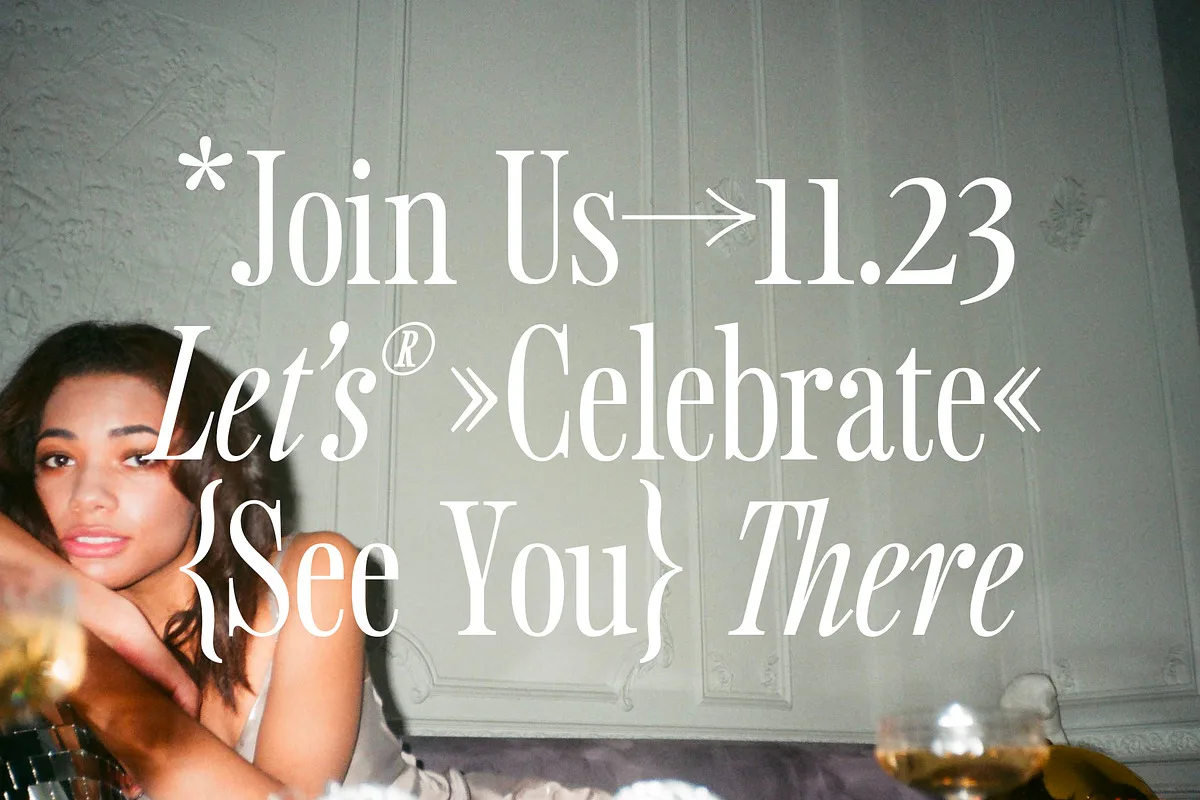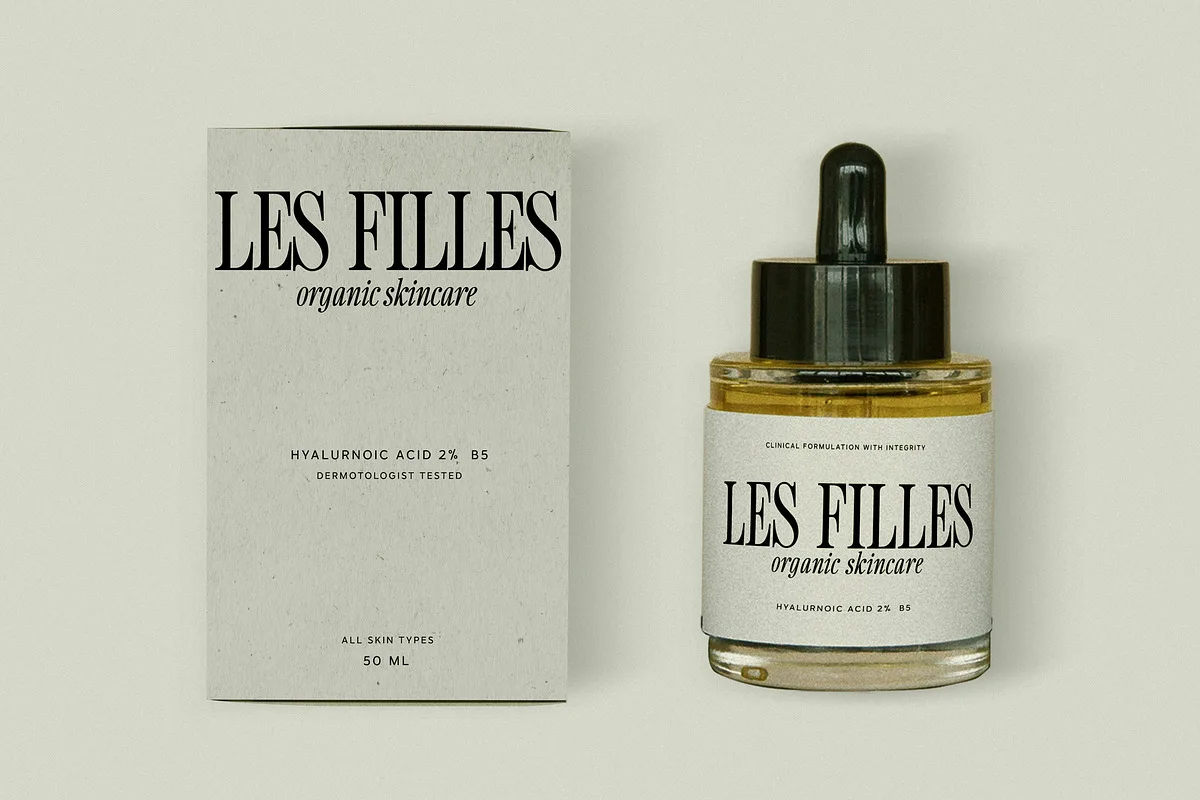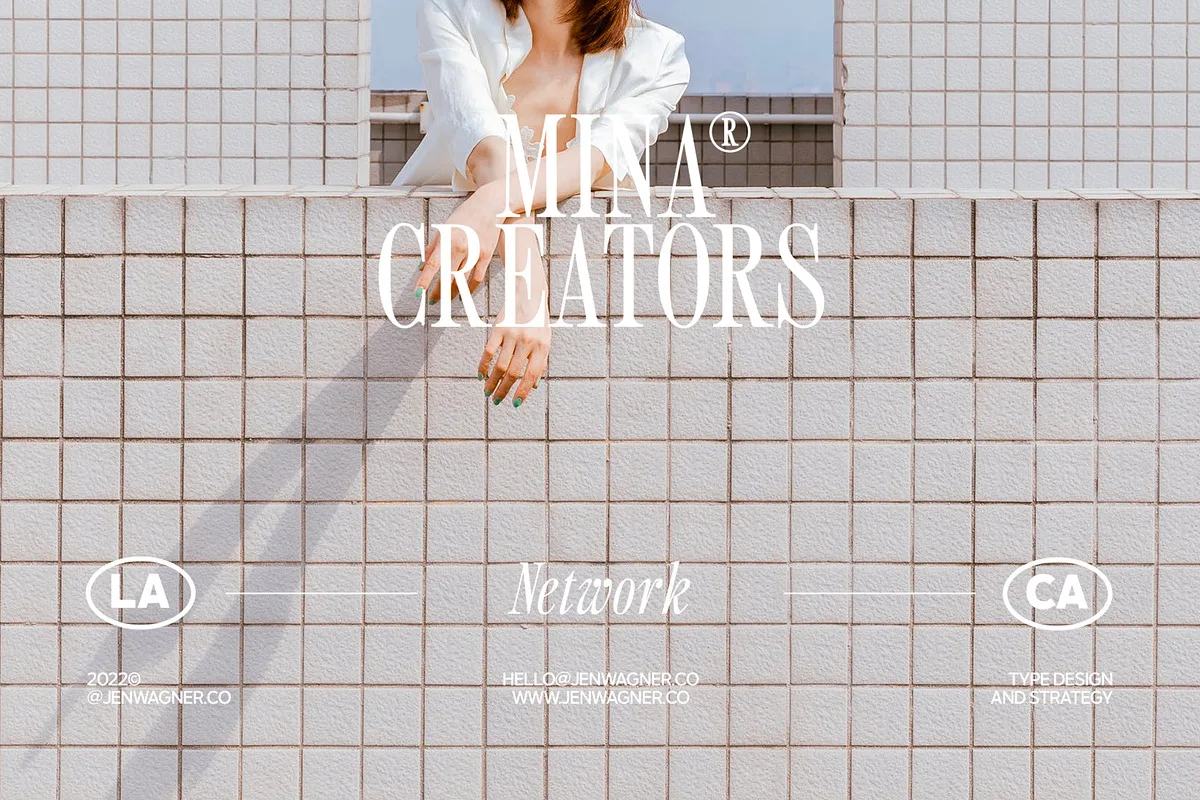
Introducing Sailing Club – a brand new nostalgic serif revival that will make you want to steal your all mom’s vintage college sweatshirts.
I’ve been loving how the 90s and early 00s are coming back, and I can’t stop thinking about the sweatshirts you’d see Princess Diana wear around with bike shorts (plus, my dad gave me a vintage sweatshirt that is always and forever a go-to).
Sailing Club is a beautifully nostalgic upper and lowercase typeface that works best as a focal display text (think logos, headers, pretty quotes, calls to action, etc.).
The upper and lowercase give it great versatility, but I honestly just can’t get over a tightly kerned all caps. It’s too good.